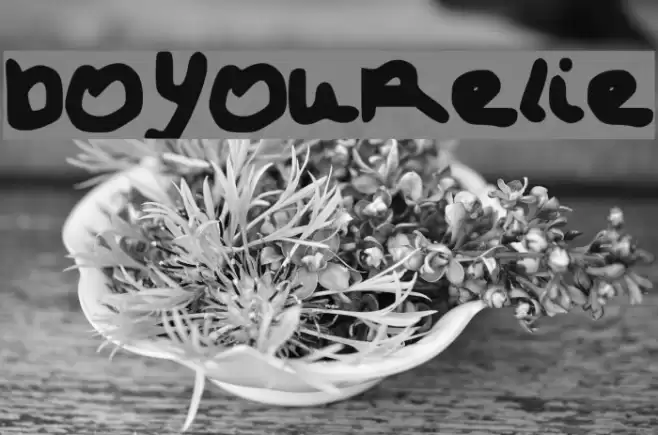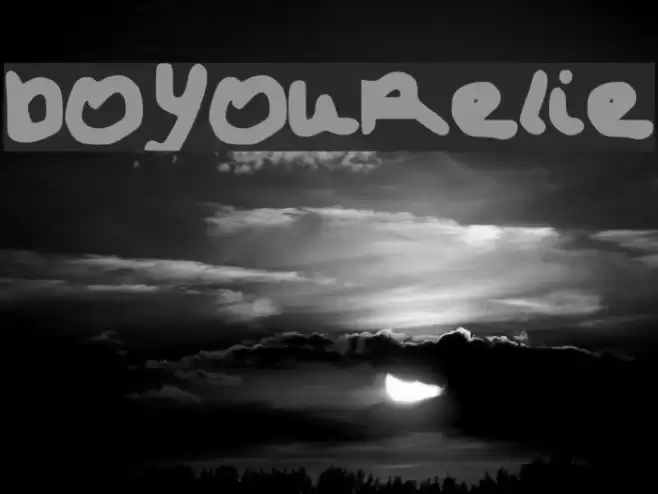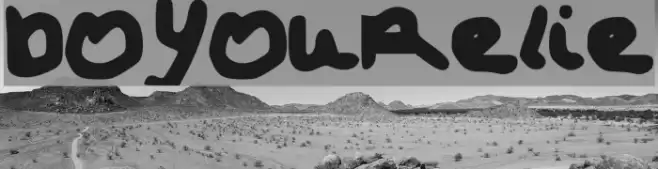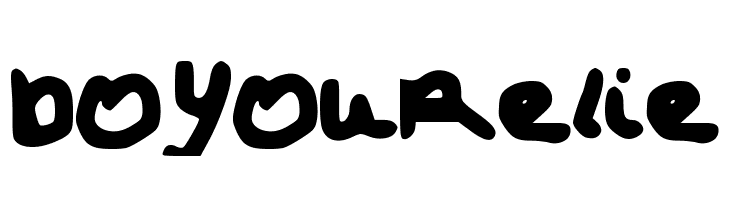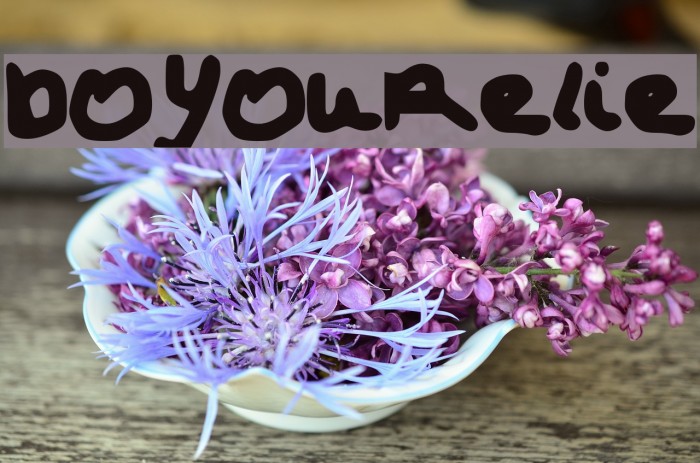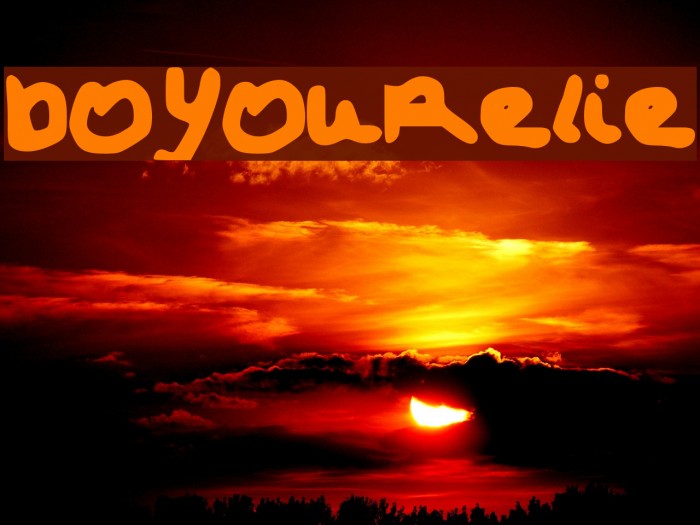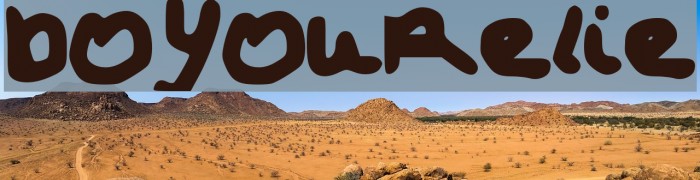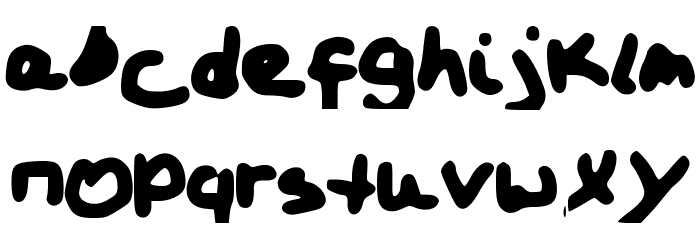
DoYouRelize Font
DoYouRelize Description
This font exhibits a playful and bold handwritten style, characterized by its thick, rounded strokes and irregular shapes. The letters have a casual, almost childlike appearance, with a dynamic flow that suggests movement and spontaneity. The uppercase and lowercase letters maintain a consistent weight, contributing to a cohesive look. The font lacks traditional serifs, giving it a modern and informal feel. Its unique character shapes and bold presence make it stand out, while the spacing between characters is relatively tight, enhancing its compact and energetic look.
A bold, playful handwritten font with thick, rounded strokes and a casual style from Uncategorized fonts.
- Proposed Projects: Ideal for children's book covers, playful branding, greeting cards, and creative posters.
- Character Spacing: Tight
- Overall Style: Playful